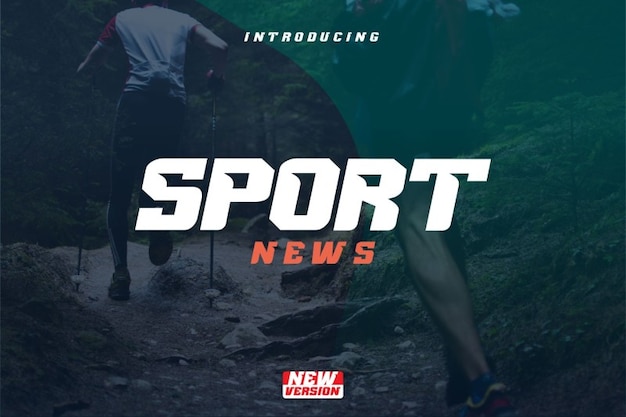
Sport News Font
Sport News font scores big with its bold and straightforward design. Whether you're covering the latest game highlights or need a strong and clean look for your sports-related project, this font brings the winning spirit. Its simplicity ensures easy readability, making it a slam dunk choice for all things sports.